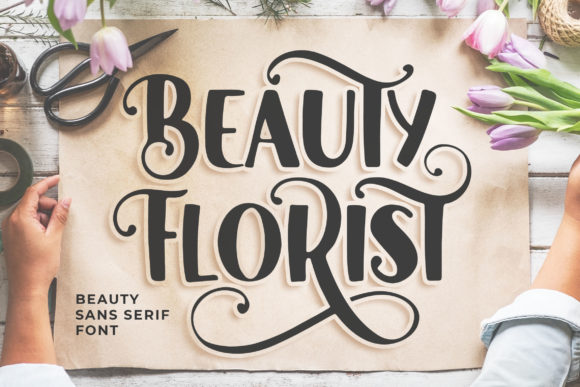
Introducing Beauty Florist Font, a delightful and sophisticated sans serif font created by Blankids Studio. Immerse yourself in a world of joy and elegance with this exceptional typeface that is sure to captivate your senses.
With its distinct charm and remarkable versatility, Beauty Florist Font is the perfect choice for all your design needs. Whether you're creating invitations, logos, or social media graphics, this font will effortlessly elevate your projects to new heights.
Hand lettering enthusiasts rejoice, as Beauty Florist Font is one of the best fonts for hand lettering. Its sleek and refined strokes effortlessly capture the essence of every letter, allowing you to infuse your designs with a touch of artistic flair. Let your creativity flow as you craft stunning calligraphy and breathtaking letterforms.
Embrace the beauty of simplicity with this sans serif gem. The clean lines and sleek curves of Beauty Florist Font exude elegance and sophistication. Its timeless appeal makes it suitable for a wide range of designs, from modern and minimalistic to classic and vintage-inspired.
Unleash your imagination and explore the endless possibilities that Beauty Florist Font offers. Whether you're designing wedding invitations that ooze romance, creating branding materials that exude professionalism, or crafting personalized gifts that leave a lasting impression, this font will be your trusted companion throughout the creative journey.
But Beauty Florist Font is not just visually stunning, it also evokes a multitude of emotions. Its graceful and flowing letters bring a sense of harmony and serenity to your designs, making them visually pleasing and emotionally captivating. Stand out from the crowd and make a lasting impact with this truly exceptional typeface.
In a world where first impressions matter, Beauty Florist Font ensures that your designs make a striking impact. Its seamless blend of elegance, versatility, and emotion makes it a must-have for anyone looking to elevate their design game. Don't miss out on this extraordinary font that will take your creations to new heights.